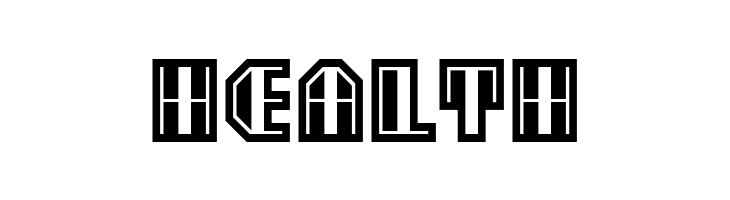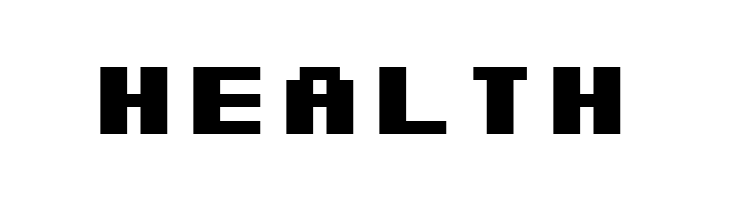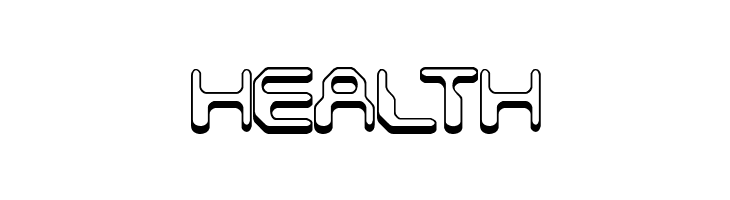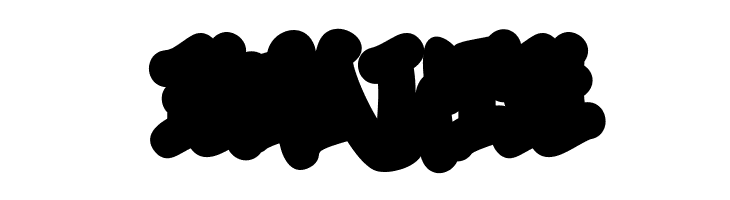
Ornamental symbol font featuring African-inspired illustrations.
A decorative font inspired by nautilus shells, featuring intricate spiral and circular designs.
An abstract, artistic font inspired by Kandinsky's style, featuring unique geometric compositions.
Ornamental dingbat font with animal and nature motifs.
A decorative collection of symbols inspired by traditional African artifacts.
Abstract, nature-inspired dingbat font with bold, decorative shapes.
A pictographic font inspired by African art, featuring bold and expressive symbols.
A pictogram set inspired by ancient cave paintings, featuring animals and abstract shapes.
A decorative font inspired by ancient symbols with bold, high-contrast characters.
A whimsical pictogram font inspired by classic TV show scenes, featuring playful silhouettes.
Abstract, geometric display font with a futuristic, space-inspired theme.
A decorative symbol font with artifact and tribal-inspired pictograms.
A bold, geometric font with thick borders and a modern, digital-inspired style.
A retro dot matrix font with a digital, tech-inspired aesthetic.
Pictographic, cave art-inspired decorative font with hand-drawn, irregular shapes.
A pictogram-based decorative font inspired by ancient and prehistoric art.
Ornate, tribal-inspired pictorial font with bold, intricate glyphs.
A collection of abstract, Easter Island-inspired symbols with a bold, artistic style.
A pictorial, artifact-inspired decorative font with unique glyphs for each character.
A playful, 3D computer key-inspired font with a nostalgic tech vibe.
Graffiti-inspired decorative font with unique street art illustrations for each character.
A collection of tribal-inspired illustrations featuring animals and abstract figures with intricate patterns.
A collection of intricate tribal-inspired illustrations with bold, artistic motifs.